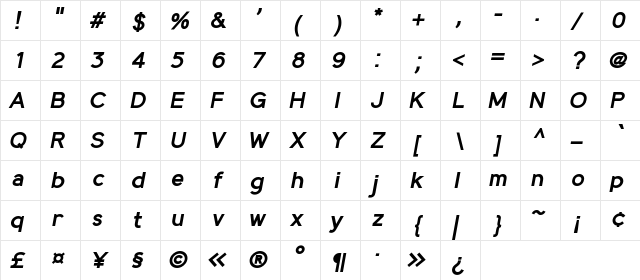
MadeynSans Semibold Italic
| Designer | Rachel San |
Design Context for MadeynSans Typeface
MadeynSans offers clean, dependable letterforms without strong stylistic allegiance, making it a practical choice for designers who need flexibility. Its italic angle brings a sense of urgency and motion to the letterforms. Its bold stroke weight gives it real presence on the page.
Pro Tip: Use MadeynSans for emphasis, pull quotes, and subheadings where its slanted energy can add rhythm to the layout.